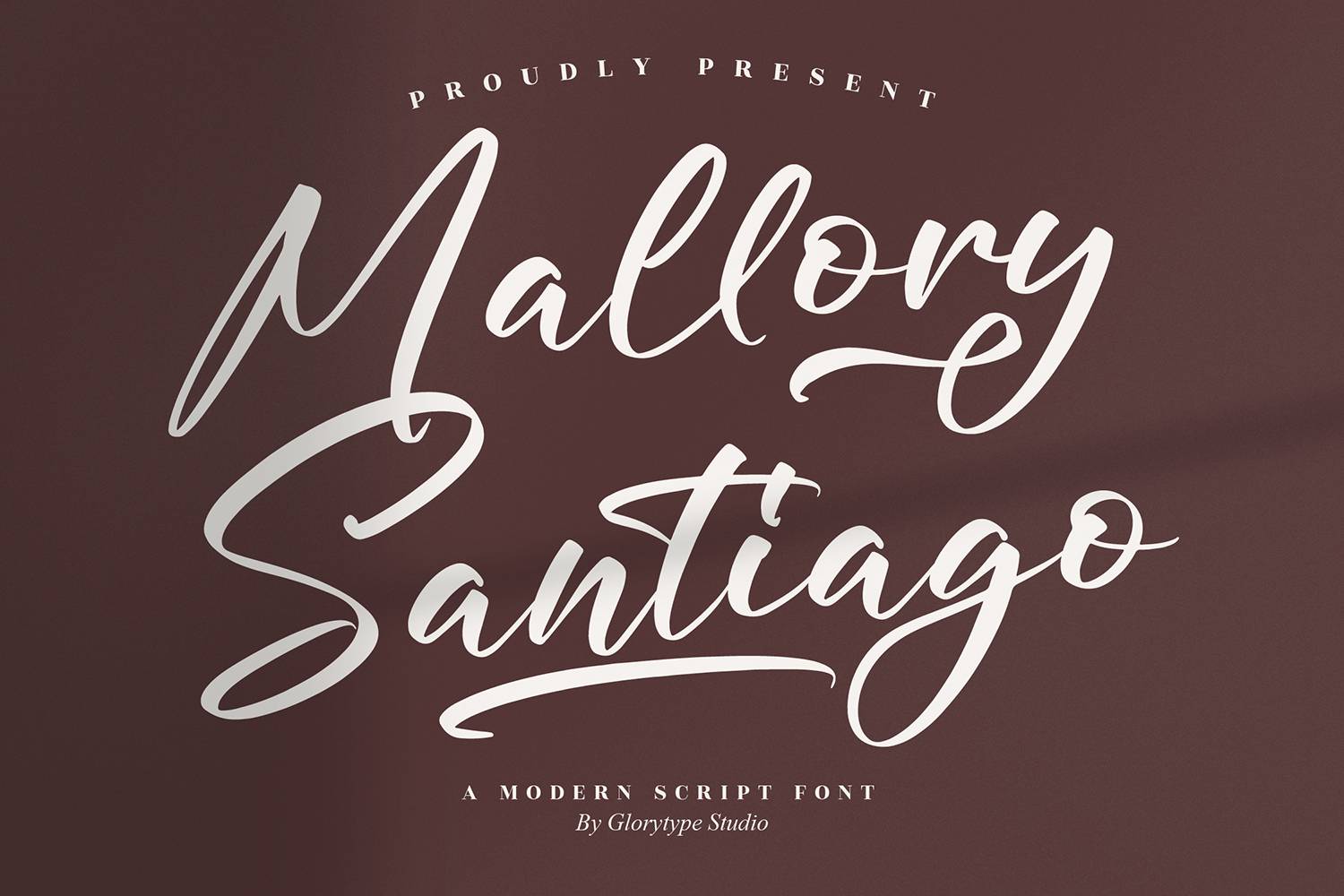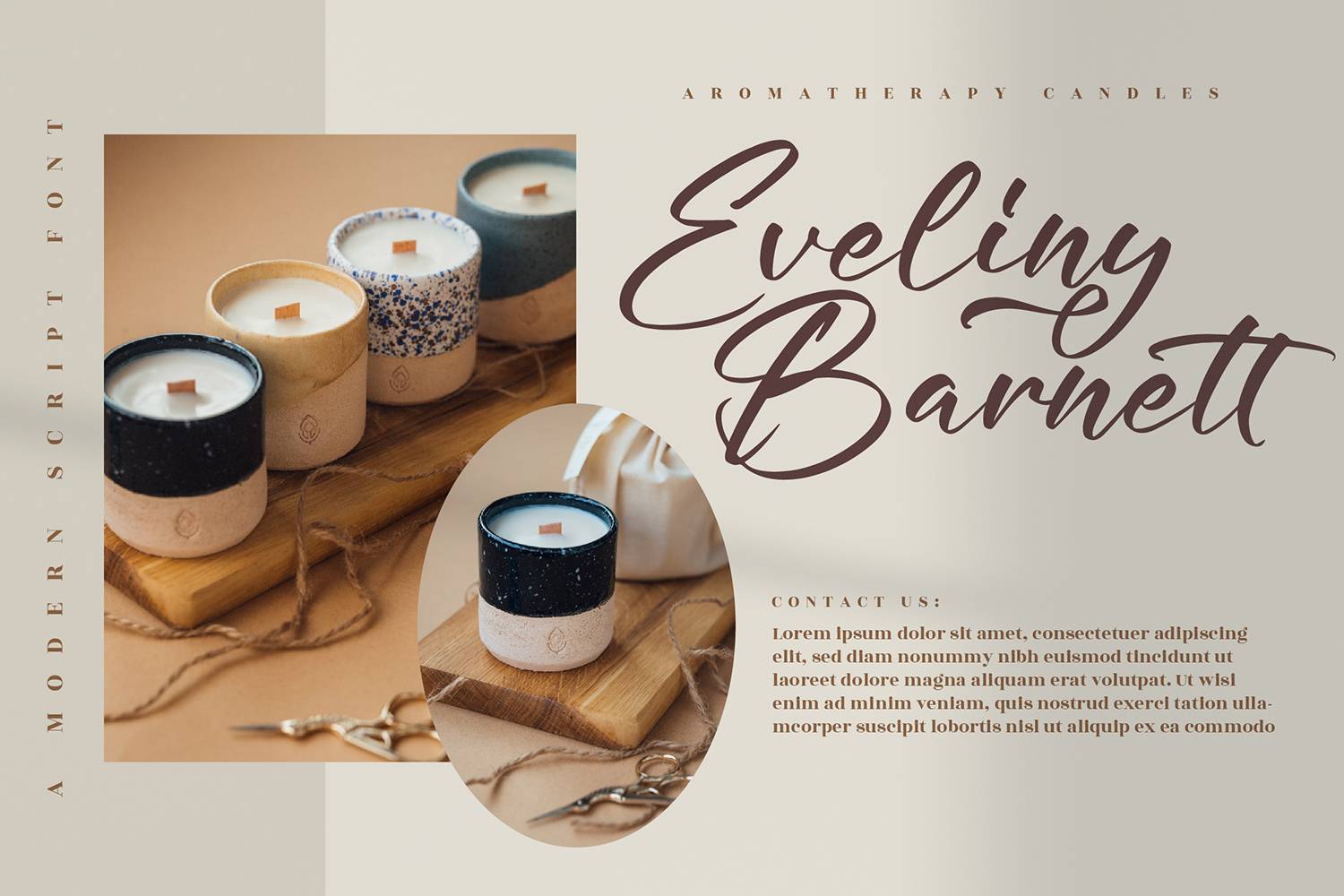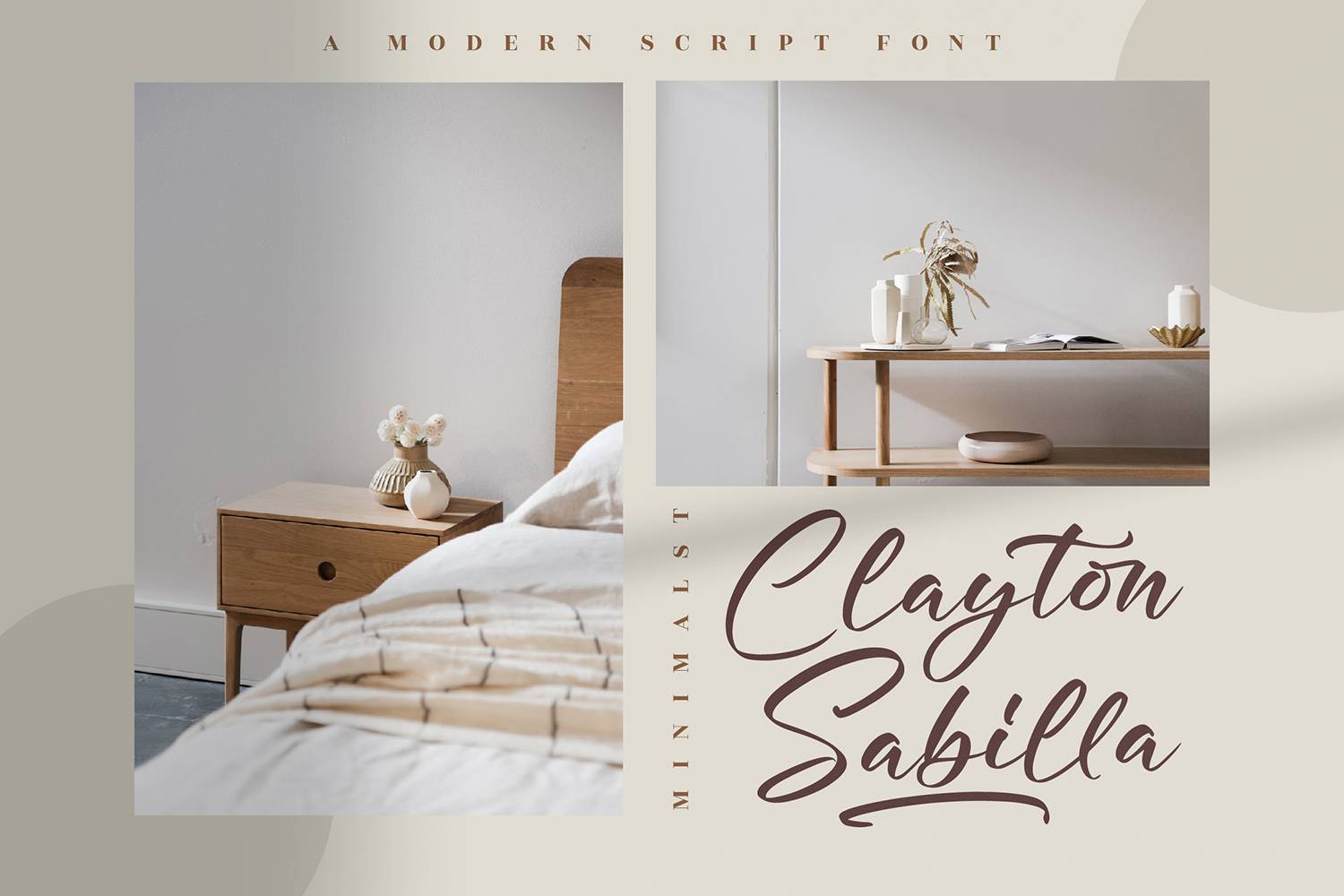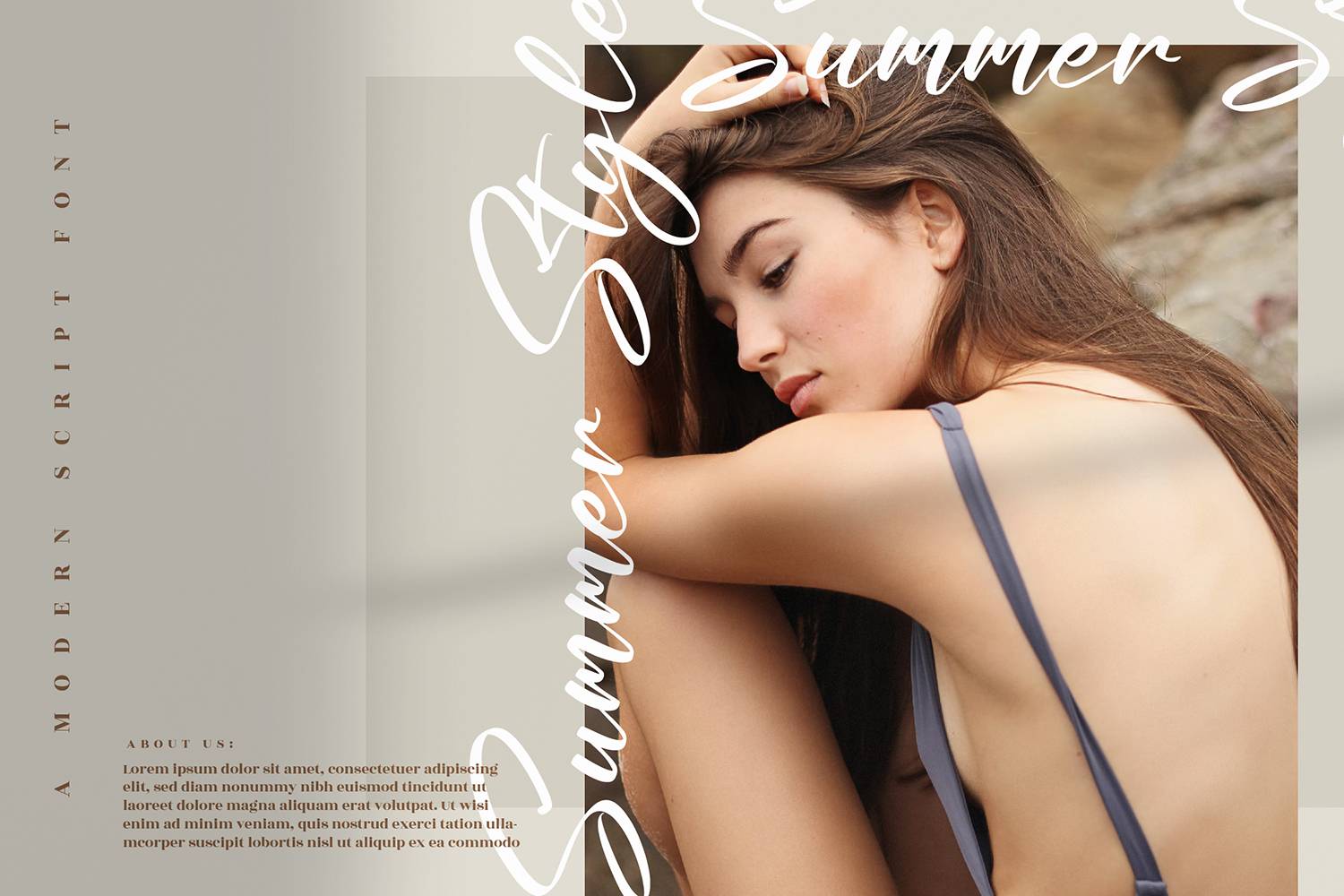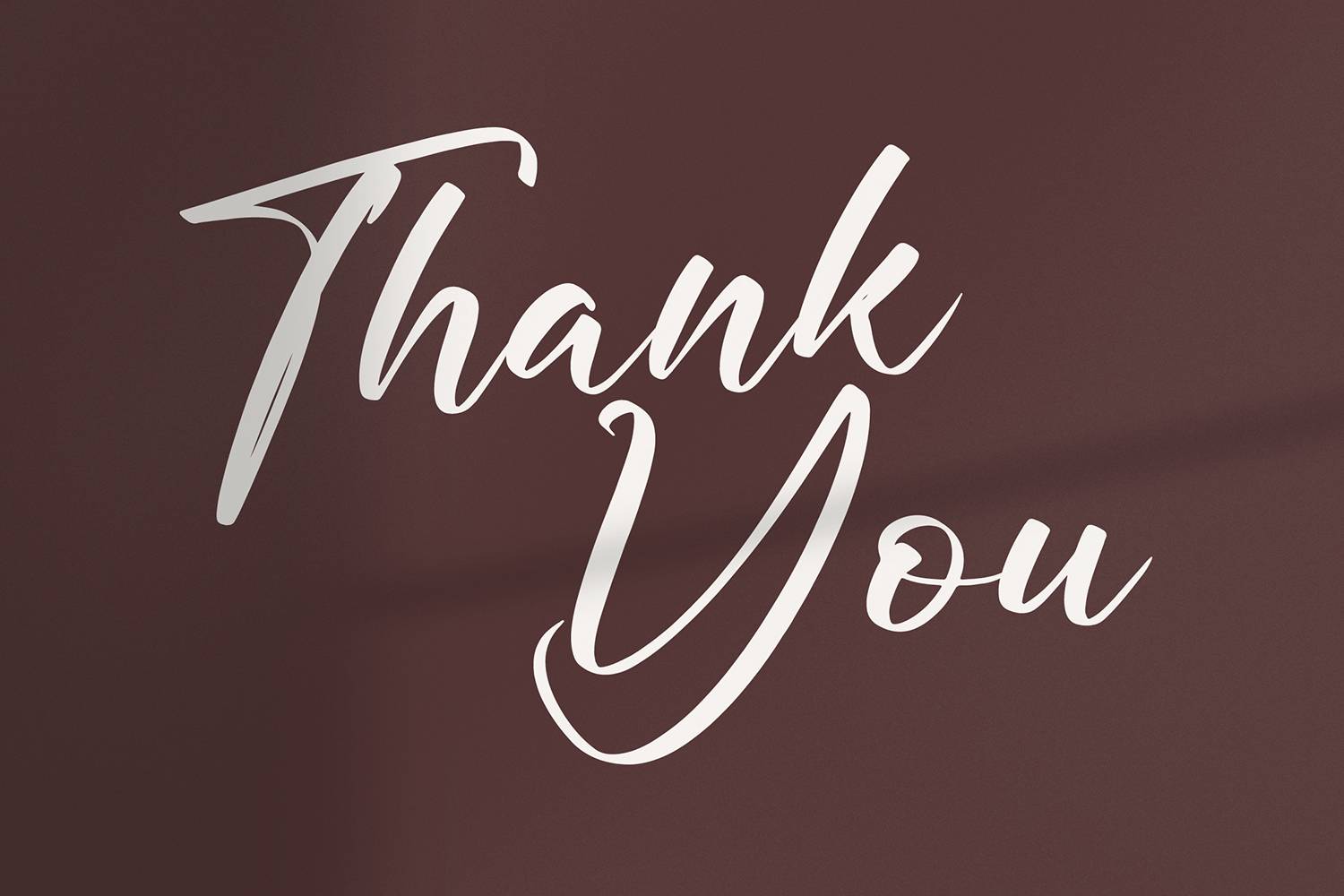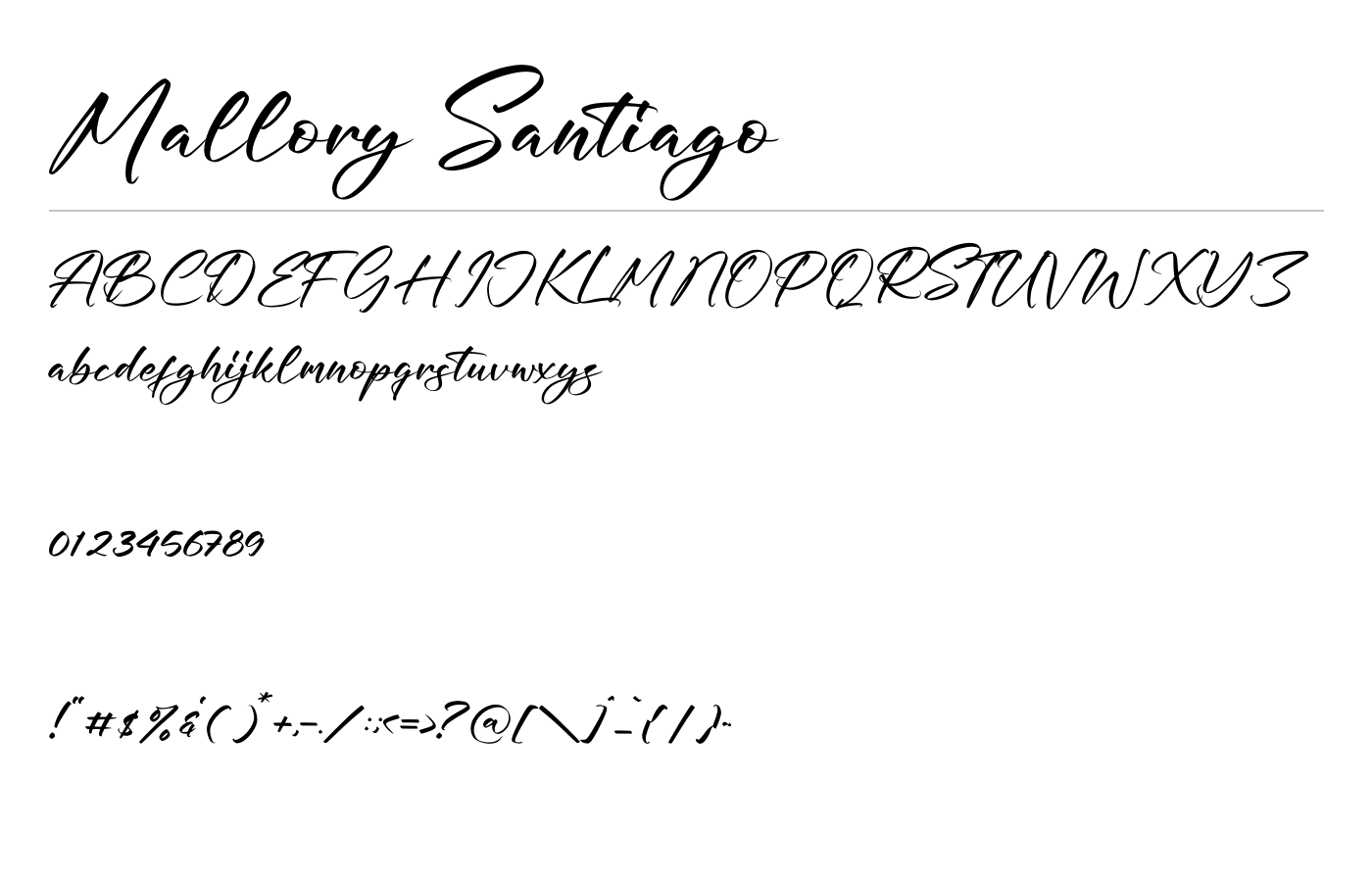
Mallory Santiago is a stylish script font with elegant, flowing strokes that mimic natural handwriting. It features a light to medium weight with a slightly condensed width and smooth, calligraphic curves, making it perfect for adding a personal, sophisticated touch to invitations, branding, and social media graphics. This font works well for designs that need a modern yet graceful feel, such as fashion, beauty, or lifestyle projects.
Mallory Santiago Font